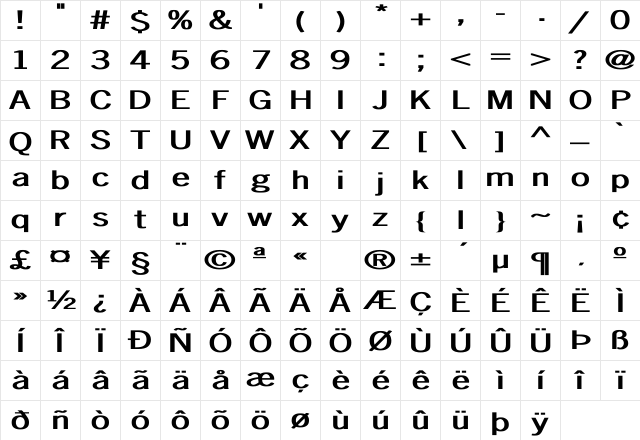
Complete NewsGothic Ex Bold glyph index. Displaying only characters natively supported by NewsGothic Ex Bold font.
NewsGothic Ex takes a clean, functional approach - its unadorned letterforms prioritise legibility and work reliably across screen and print environments. Its bold stroke weight gives it real presence on the page.